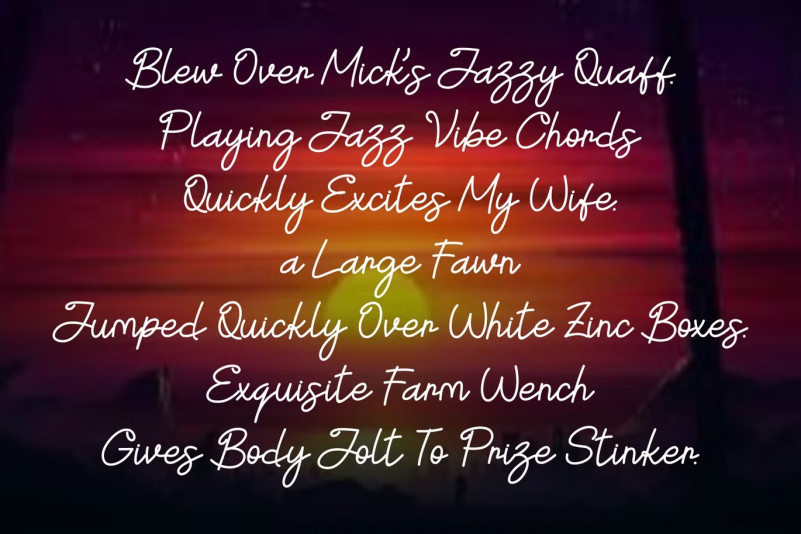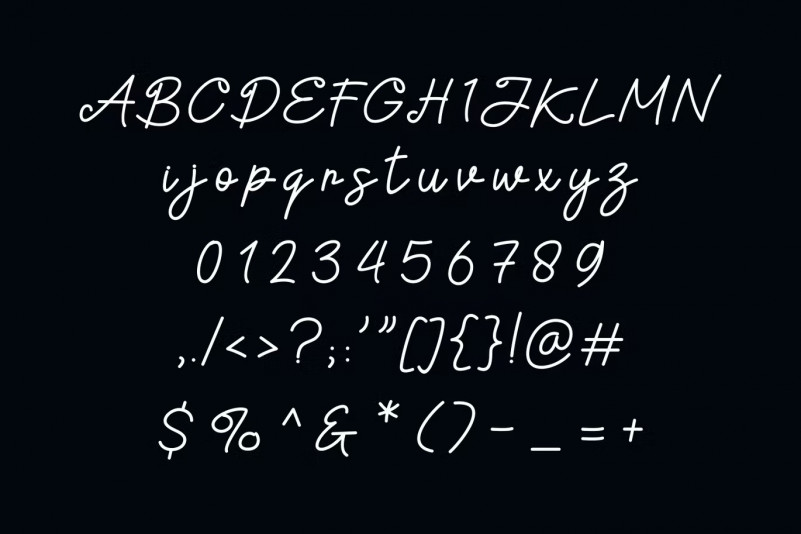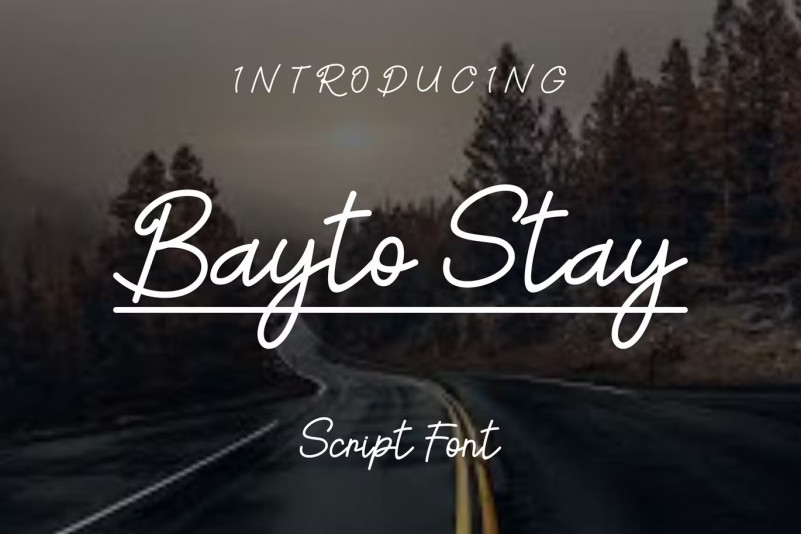
BaytoStay Font
BaytoStay Font Perfectly suited on print/screen. it’s perfect for namecard, poster, logo, magazine, cover, banner, tshirt and headers, or even large-scale artwork.